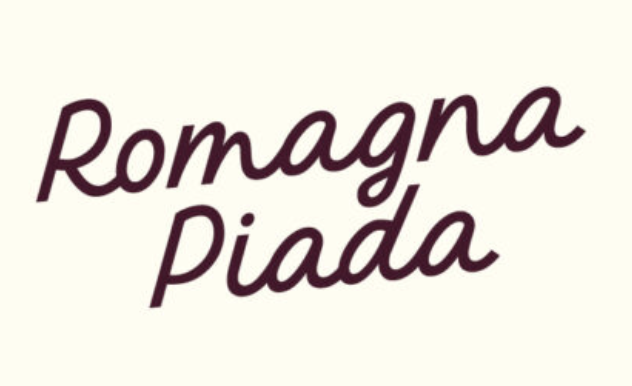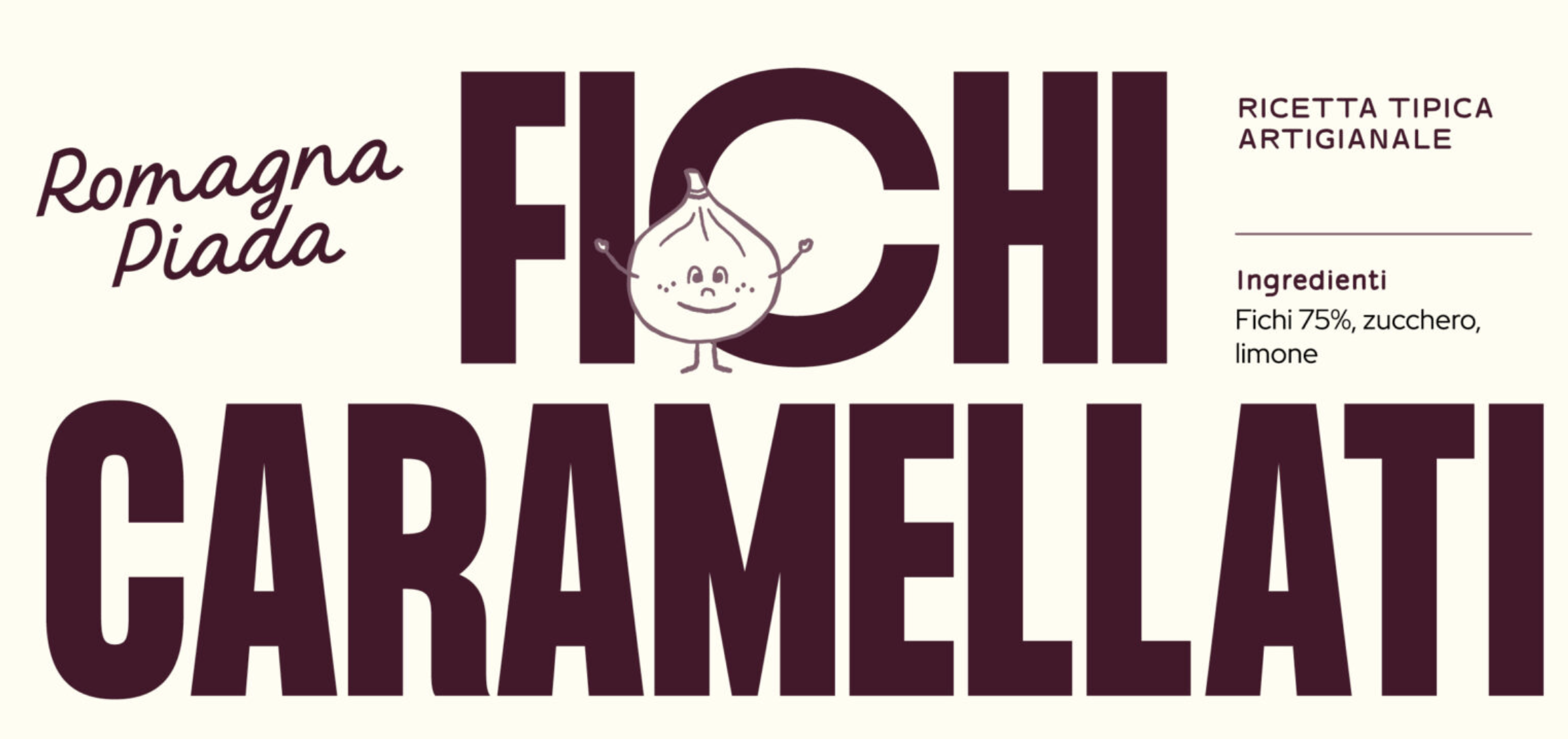
Help identifying this Italian-feeling script on a food package (Romagna Piada)
Does anyone know what this script font may be? It has a very Italian, somewhat old-school automotive feel. Thank you!